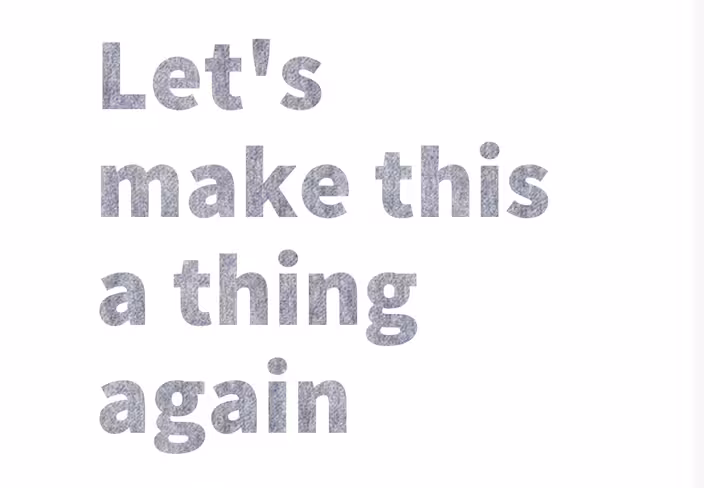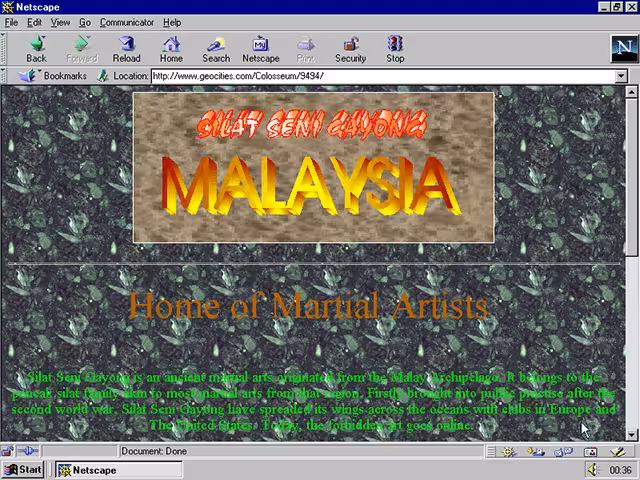
Google is bringing back the spirit of Geocities in Google Fonts
A buried feature in Google Fonts, called font effects, is an amazing throwback to the days of Geocities and Microsoft’s infamous WordArt for your modern-day website.
You remember what I mean, right? Sites all over the Web that used to feature glorious pages like this:
Font effects can be applied to any Google Web font by adding a class to your code that already loads in your font. Ever wanted to add fire animations to your text just like it’s 2001? Now you can.
There are a number of font effect options available, none of which are any less dated. You can make your font neon, embossed, or even add a nice textured overlay.
I have no idea why this feature exists, but the simple fact that it does is awesome. There are some compatibility issues with Firefox, so check the effect you’re using before you try it out.
Google font effects aren’t new, but I’m hopeful that the discovery of this feature means we’ll see a lot more websites featuring Geocities style text effects all over again, soon.